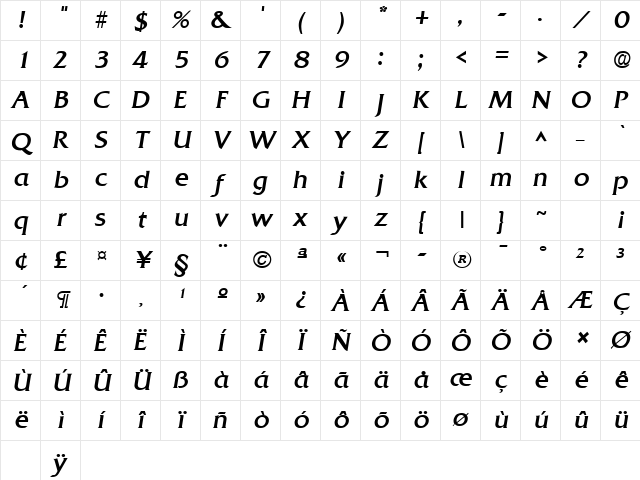
Quadrata SF Bold Italic Free Font
Quadrata SF Bold Italic
Design Context for Quadrata SF
Quadrata SF is a composed and adaptable typeface that performs quietly and consistently across a wide range of design contexts. The slanted form adds forward momentum and visual energy. Its bold stroke weight gives it real presence on the page.